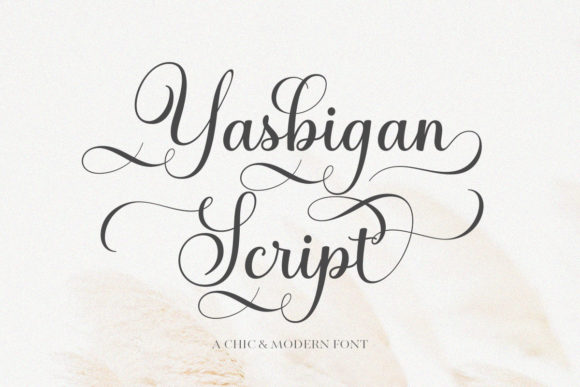
Immerse yourself in the world of Yasbigan Font, a captivating script font crafted to elevate your designs with timeless elegance. Created by the visionary Attract Studio, Yasbigan is a meticulously balanced symphony of curves and strokes, designed to add a touch of sophistication and charm to your creative endeavors.
With Yasbigan's graceful lines, you can craft wedding invitations that radiate romance and heartfelt emotion. Each letter dances across the page, carrying your words with an air of elegance that will leave a lasting impression on your guests. Let Yasbigan be the perfect font for your save-the-date cards, adding a touch of intrigue and anticipation to your special day.
Yasbigan's versatility extends beyond the realm of personal celebrations. Its timeless charm makes it an ideal choice for various branding projects. Whether you're designing a new logo for your business or creating marketing materials that exude professionalism, Yasbigan will elevate your brand identity with its refined and sophisticated style.
Unleash your creativity with Yasbigan, a script font that dances across the page with effortless grace. Its timeless appeal and versatility make it the perfect choice for wedding invitations, save-the-date cards, and a myriad of branding projects. Discover the beauty of Yasbigan and let your words and designs shine with elegance and sophistication.
Yasbigan Font: The Perfect Harmony of Form and Function
Experience the allure of Yasbigan Font, a script font that harmoniously blends form and function. With its graceful curves and elegant strokes, Yasbigan captivates the eyes and invites readers to delve into your words. Its versatility makes it a perfect choice for a wide range of projects, from personal invitations to professional branding.
Indulge in the timeless beauty of Yasbigan, a script font that transcends trends and fads. Its classic style ensures that your designs will remain relevant and captivating for years to come. Let Yasbigan be your trusty companion in the world of typography, adding a touch of sophistication and charm to every project you undertake.
Embrace the power of Yasbigan Font, a script font that will transform your creative visions into reality. Its intuitive design and user-friendly features make it accessible to designers of all levels. Whether you're a seasoned professional or just starting your typographic journey, Yasbigan will empower you to create stunning designs that leave a lasting impression.
Elevate your designs with Yasbigan Font, a script font that embodies the essence of elegance and sophistication. Its carefully crafted characters and harmonious flow will captivate your audience and leave them yearning for more. Experience the magic of Yasbigan and witness how it transforms your words into works of art.